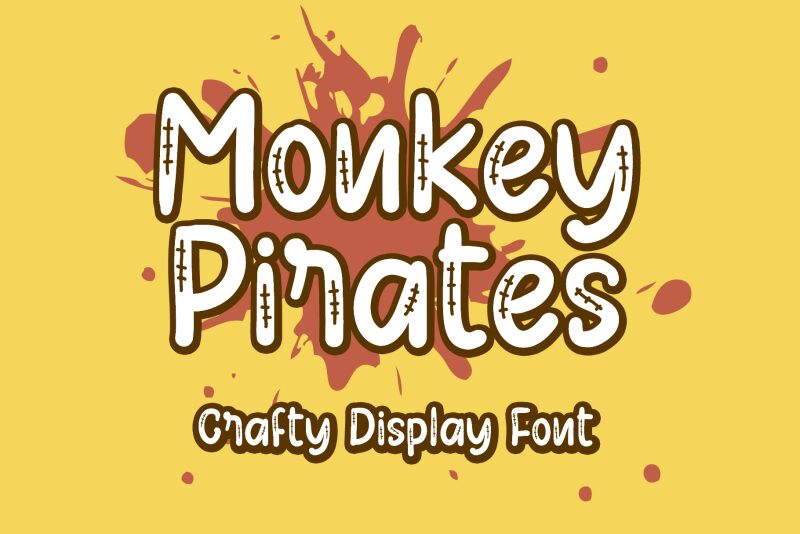
Monkey Pirates, a captivating display font crafted by the talented Annisa Afni of Tuinsstudio, exudes a whimsical, cartoon-inspired charm. This playful typeface boasts a distinctive hand-drawn aesthetic, with each glyph showcasing a rugged, textured finish that evokes the spirit of mischievous buccaneers. The irregular, almost haphazard strokes lend an endearing, imperfect quality, while the slightly rounded terminals and organic shapes contribute to an overall lighthearted and approachable vibe.
Monkey Pirates thrives in design contexts that call for a touch of adventure and fun, such as children's products, party invitations, or even brand identities seeking a playful and memorable flair. Its versatility allows it to seamlessly integrate into a wide range of projects, from dynamic social media graphics to captivating poster designs, where its unique character can truly shine.